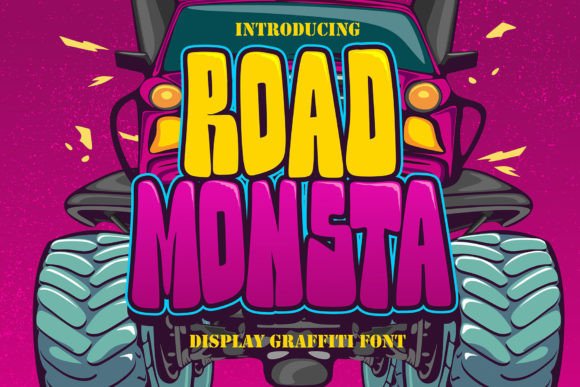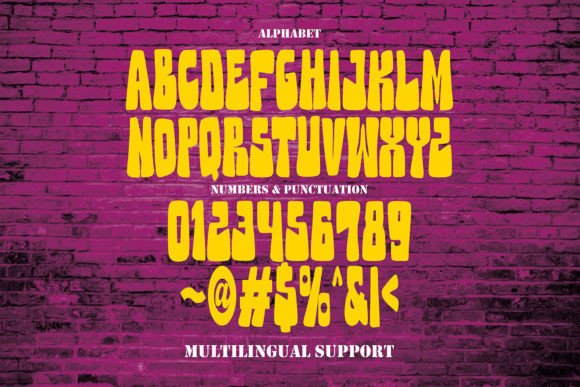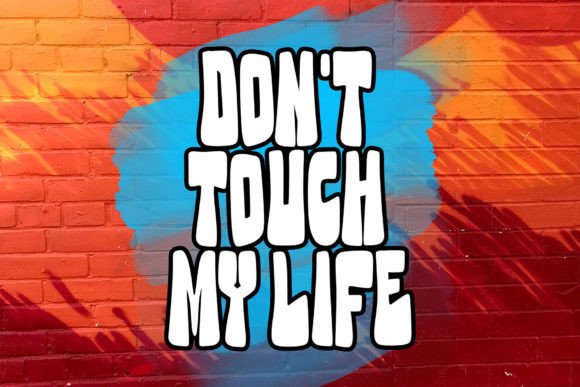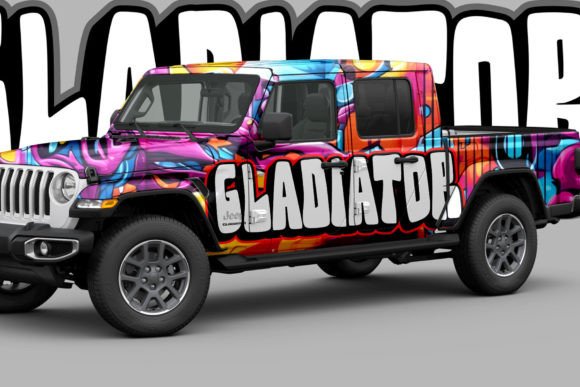
Road Monsta Font: Bold Graffiti Display Font for Unique Logo Design
About the Road Monsta Font
Unleash your creativity with Road Monsta Font, a versatile font perfect for a wide range of applications. “Road Monsta” is a basic graffiti font that’s perfect for a variety of powerful design projects. With expressive letter characters and bold, striking lines, this font adds an urban and bold touch to your typography. Whether used for posters, logos, or designs that require a strong graffiti aesthetic, “Road Monsta” ensures that your message appears bold and full of energy.
This font excels in headline use, short impactful statements, and branding applications where a rebellious, high-energy aesthetic is desired. Think streetwear apparel, music posters, or edgy product packaging. Avoid using it for body copy or UI elements; its strong forms are not legible at smaller sizes or for extended reading.
Road Monsta’s personality is undeniably bold and assertive. To balance this, consider pairing it with a clean sans-serif like Open Sans for body text or a more geometric sans-serif like Futura for a sophisticated contrast. For a slightly softer touch, a neutral serif such as Lora could work well, providing a counterpoint to the font’s raw energy.
Road Monsta Font Usage Examples
Road Monsta Font Example